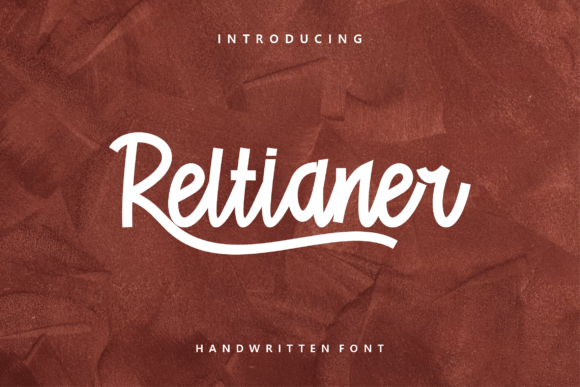
Welcome to the enchanting world of Reltianer font, where elegance and modernity collide to create a masterpiece. This captivating handwritten font exudes beauty, class, and grace, making it the perfect choice for those seeking to make a statement. Immerse yourself in the world of Reltianer and let its charm ignite your creativity.
With its timeless appeal, Reltianer effortlessly elevates any project, be it a signature, stationery, logo, wedding invitation, typography quote, magazine or book cover, website header, clothing, branding, or packaging design. Its versatility knows no bounds, allowing you to explore a myriad of creative possibilities.
Reltianer's delicate strokes and graceful curves lend a touch of sophistication to your designs, while its modern aesthetic ensures it remains relevant and impactful. Prepare to be mesmerized by the beauty of Reltianer as it transforms your words into captivating works of art.
Enhance your visual communication with Reltianer and let its allure captivate your audience. Discover the endless possibilities that await you with this exquisite font. Embrace the power of Reltianer and embark on a creative journey like no other.